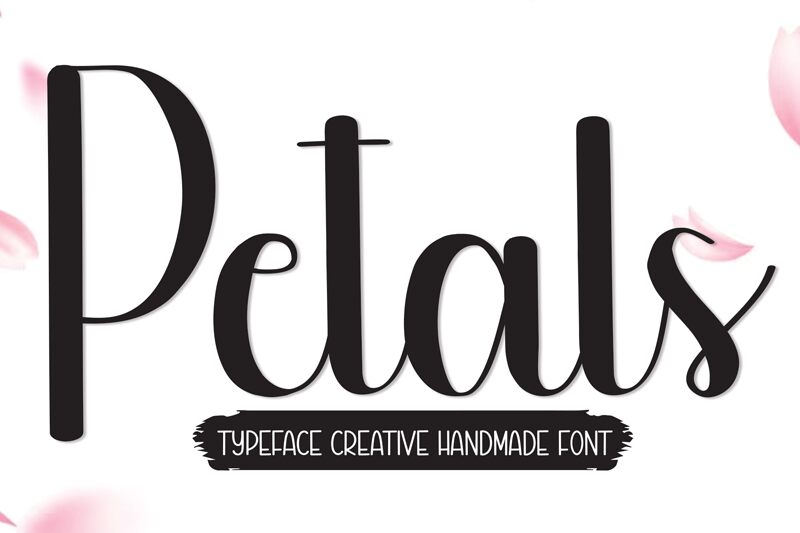
Petals
Petals font, crafted by Scratchones, exudes a charming handwritten style with its distinct condensed width. Its playful and flowing curves create an elegantly organic appearance, making it a perfect choice for projects seeking authenticity and warmth. The unique character of the Petals font brings a personal touch to any design, ideal for greeting cards, invitations, or branding where individuality is key.